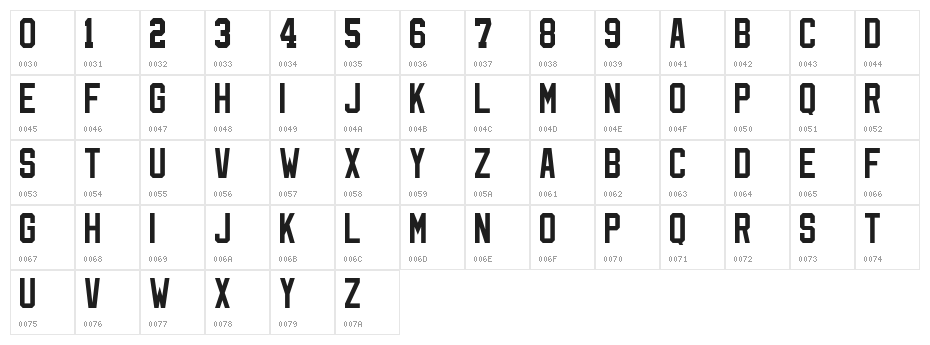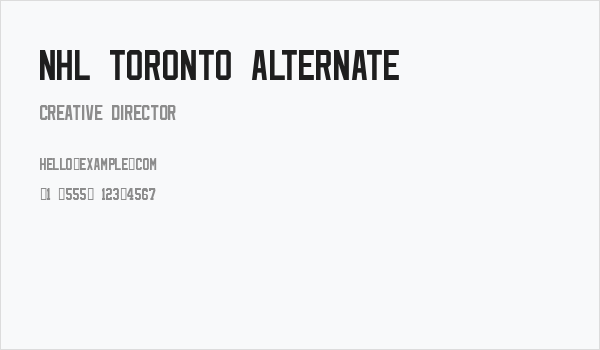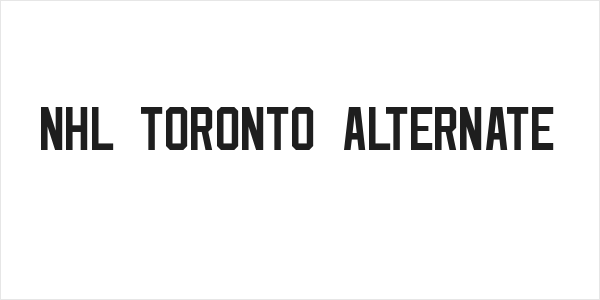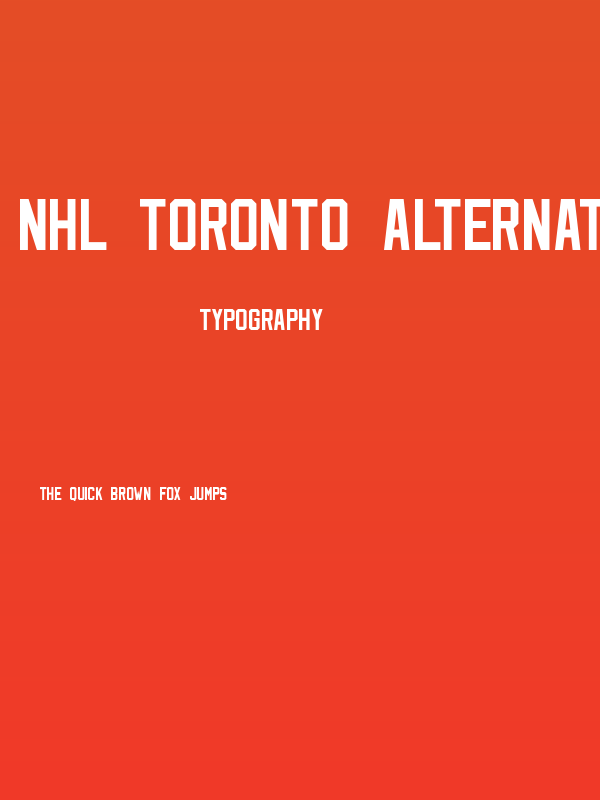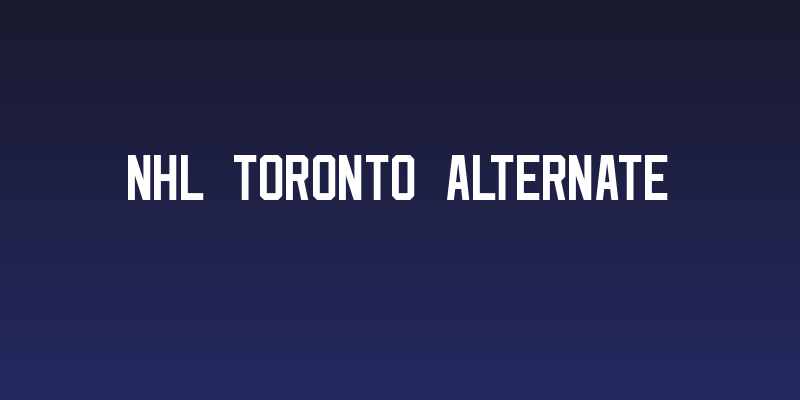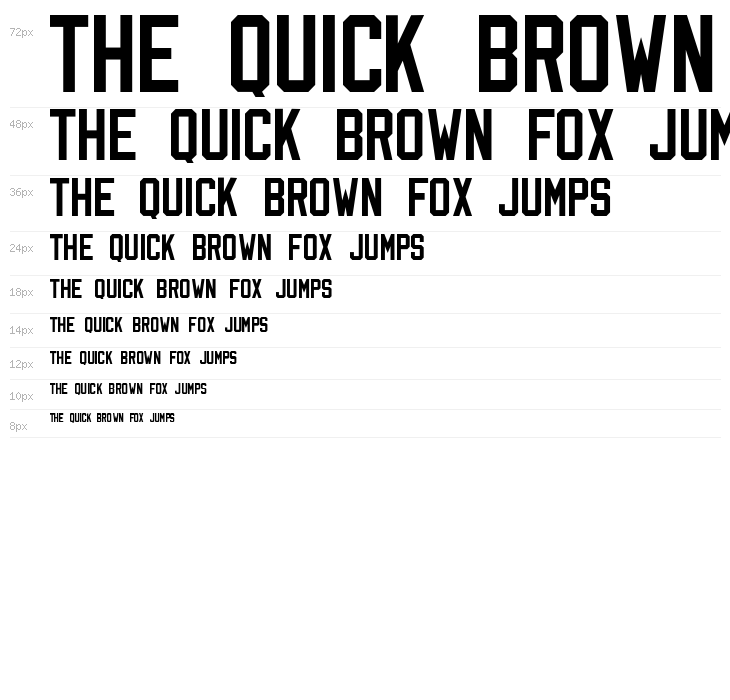
NHL Toronto Alternate Font
NHL Toronto Alternate Description
This font features a bold, geometric design with strong, angular lines and a uniform stroke width. The characters are uppercase, with a blocky, athletic appearance reminiscent of sports jerseys. The numbers maintain the same bold style, ensuring consistency across all characters. The overall look is clean and impactful, making it suitable for designs that require a strong visual presence. The font's structure is straightforward, with no additional embellishments, emphasizing clarity and readability.
| Use Case | Logos, Headlines, Sports branding |
| Proposed Projects | Ideal for sports branding, team logos, merchandise, posters, and any project requiring a bold, athletic look. |